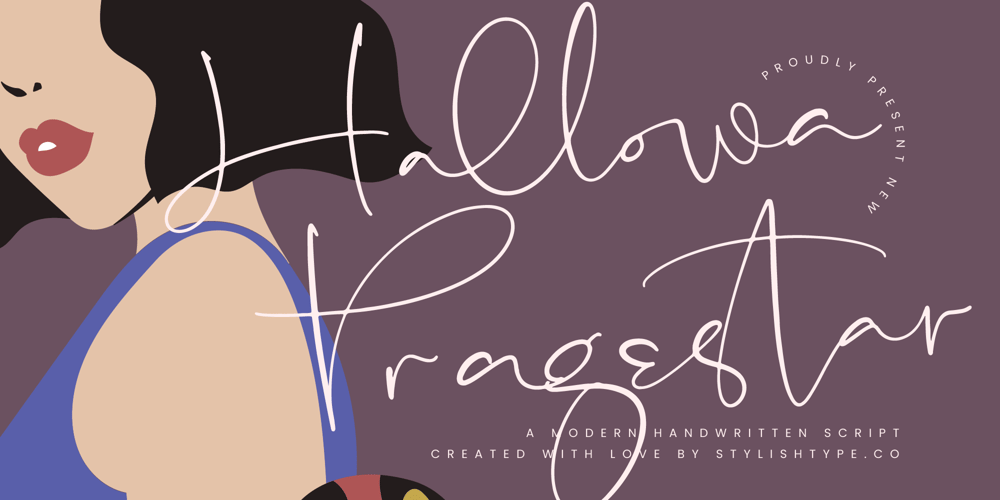
Hallowa Pragestar Font Family was designed by Heru Utama Putra and published by Stylishtype Studio. Hallowa Pragestar contains 2 styles and family package options. Hallowa Pragestar – Modern Handwritten Font , from Stylishtype, Suitable for any projects such as: logos, branding projects, homeware designs, product packaging, mugs, quotes, posters, shopping bags, t-shirts, book covers, name card, invitation cards, greeting cards, label, photography, watermark, special events, and all your other luxury and beautiful projects that need a Luxury Script taste.